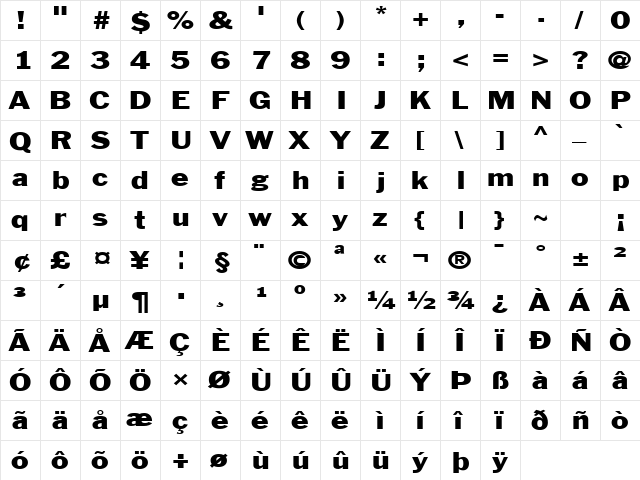
Philadelphia-Extended Normal
Design Context for Philadelphia-Extended Typeface
Philadelphia-Extended offers clean, dependable letterforms without strong stylistic allegiance, making it a practical choice for designers who need flexibility.